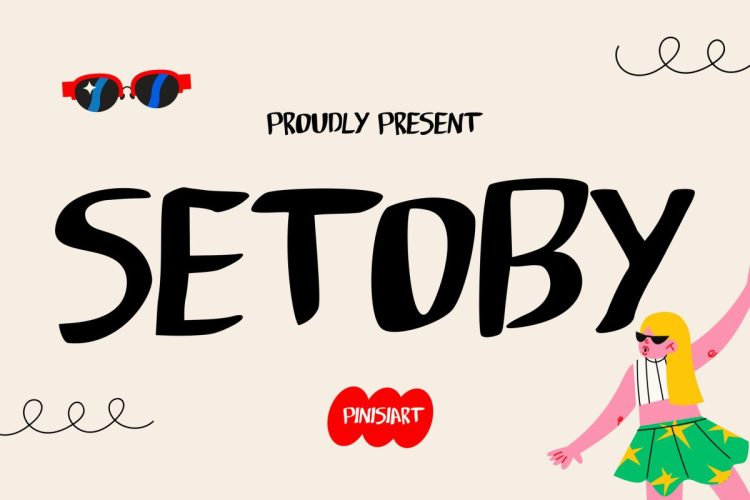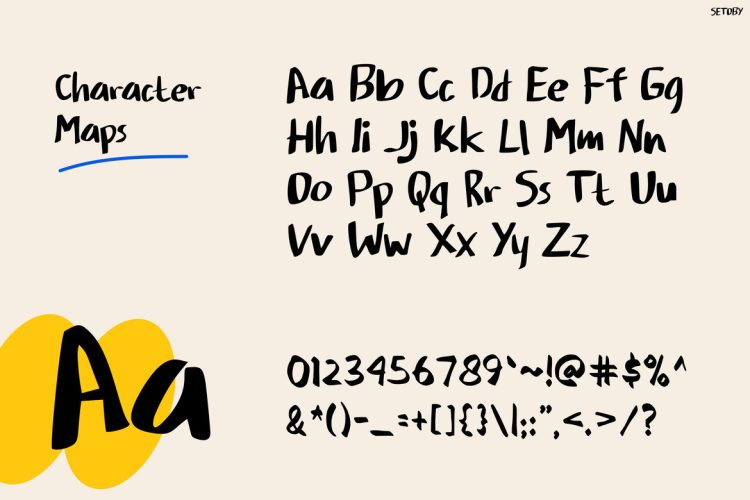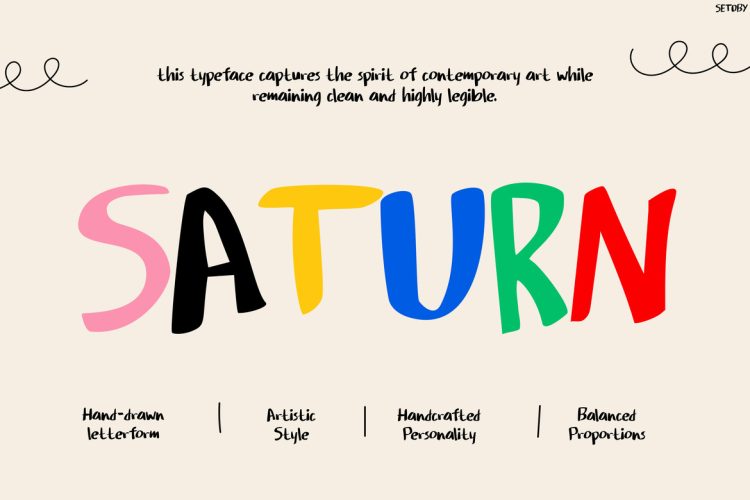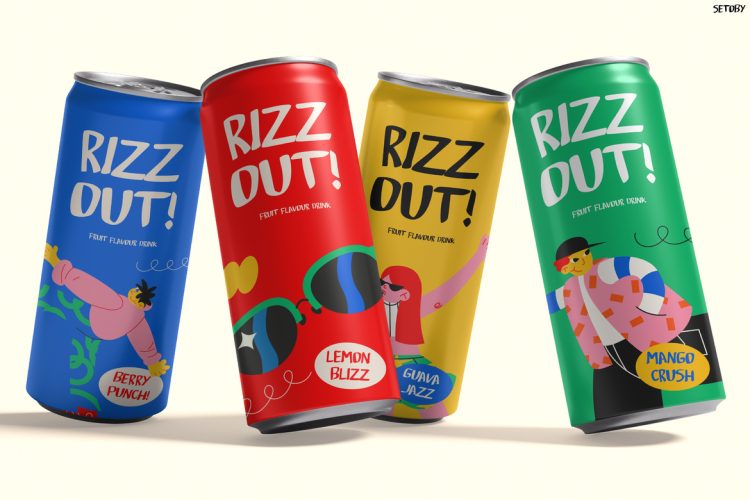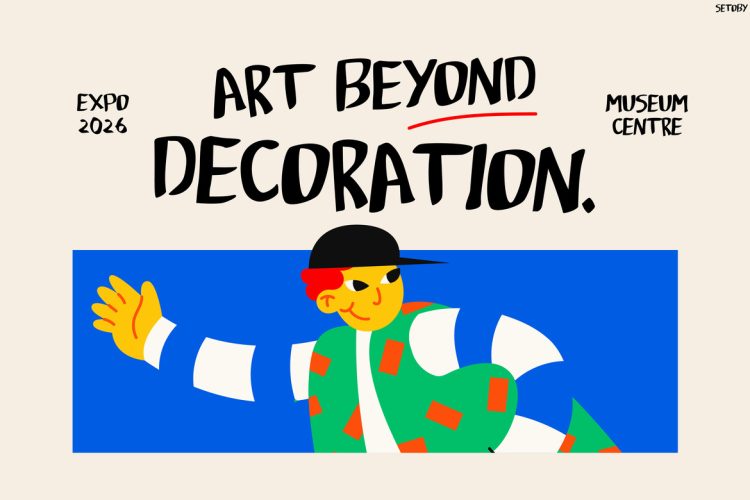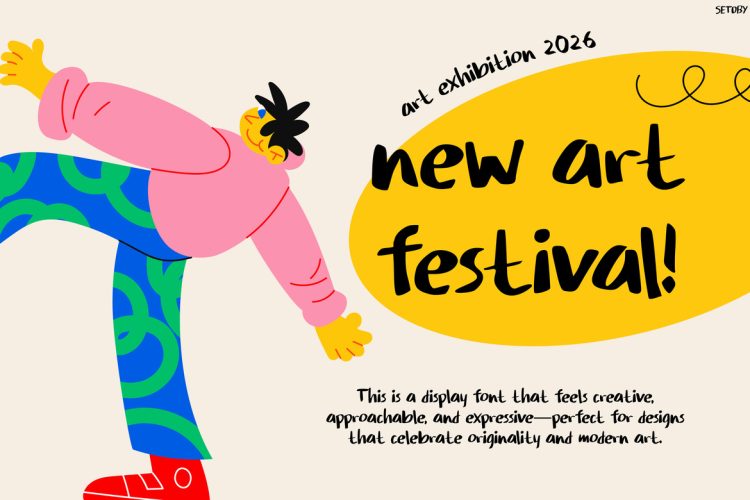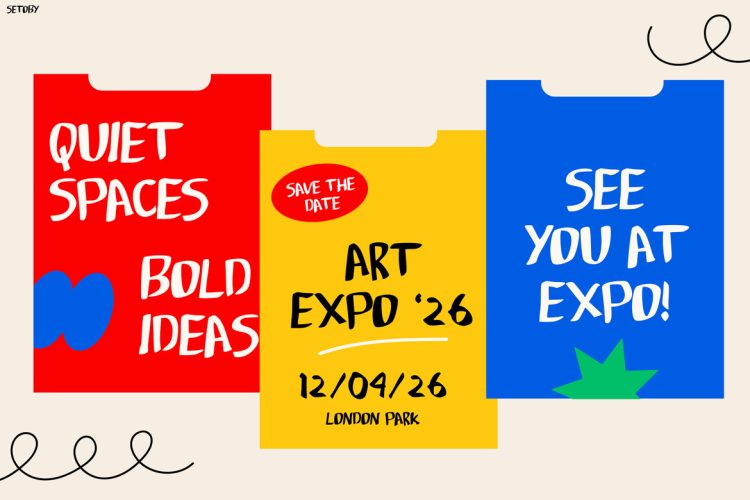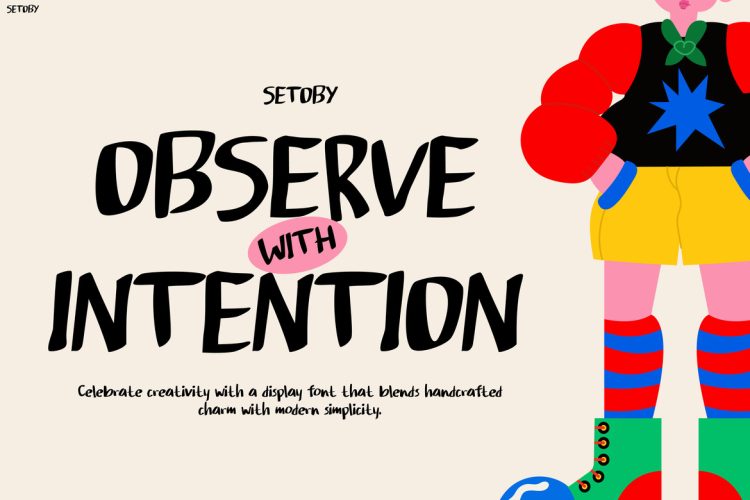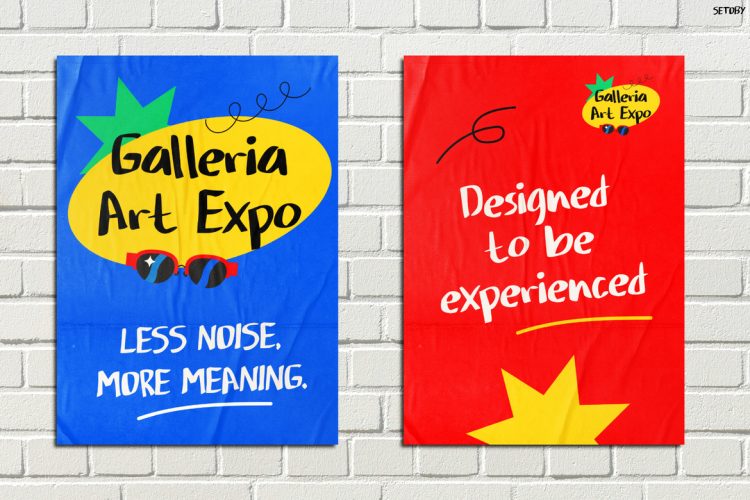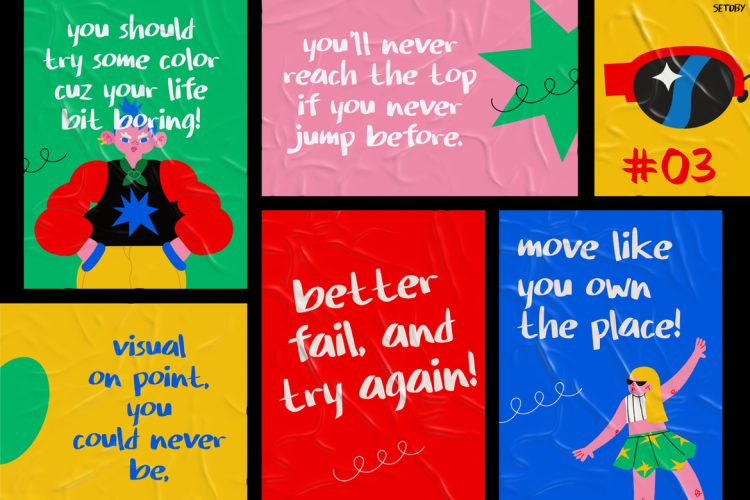
Kids Font Setoby โ Playful Letters. Endless Happy Creations.
Kids Font Setoby fills every design with joyful charm through its playful handwritten style, rounded strokes, and friendly personality. Unlike ordinary kids fonts, Setoby combines organic letterforms with bold shapes to create typography that feels warm, expressive, and full of imagination. Moreover, every character adds a handcrafted touch, while the smooth rhythm keeps every headline fun and easy to read. As a result, your projects instantly become more inviting and memorable. In addition, the versatile design performs beautifully across both print and digital media, so every creative idea shines with confidence. Whether you’re creating educational materials or playful branding, Setoby helps every message feel lively from the very first letter.
Made for Creative Minds and Happy Brands
Kids Font Setoby gives designers a playful way to build colorful and engaging visuals. Not only does it make headlines more eye-catching, but it also creates a warm personality that children and families naturally enjoy. Furthermore, it fits children’s books, educational worksheets, classroom decorations, toy packaging, birthday invitations, daycare branding, creative workshops, stickers, posters, cafรฉ menus, handmade products, social media graphics, and colorful merchandise. Meanwhile, its bold handwritten forms stay clear at every size, while the handcrafted details add character without reducing readability. Consequently, every design feels more cheerful, approachable, and full of creative energy.
Kids Font Setoby Perfect For
- Kids branding
- Children’s books
- Educational projects
- Toy packaging
- Birthday invitations
- Classroom decorations
- Posters and stickers
- Social media graphics
Make Every Letter Smile
If you want typography that spreads happiness through every design, Kids Font Setoby is the perfect choice. Furthermore, its playful handwritten style instantly brings warmth to every project. At the same time, its balanced construction keeps every layout clean and easy to read. Therefore, your audience connects with your message more naturally and remembers it longer. Finally, choose Setoby today and transform every creative idea into a joyful story that everyone will love.